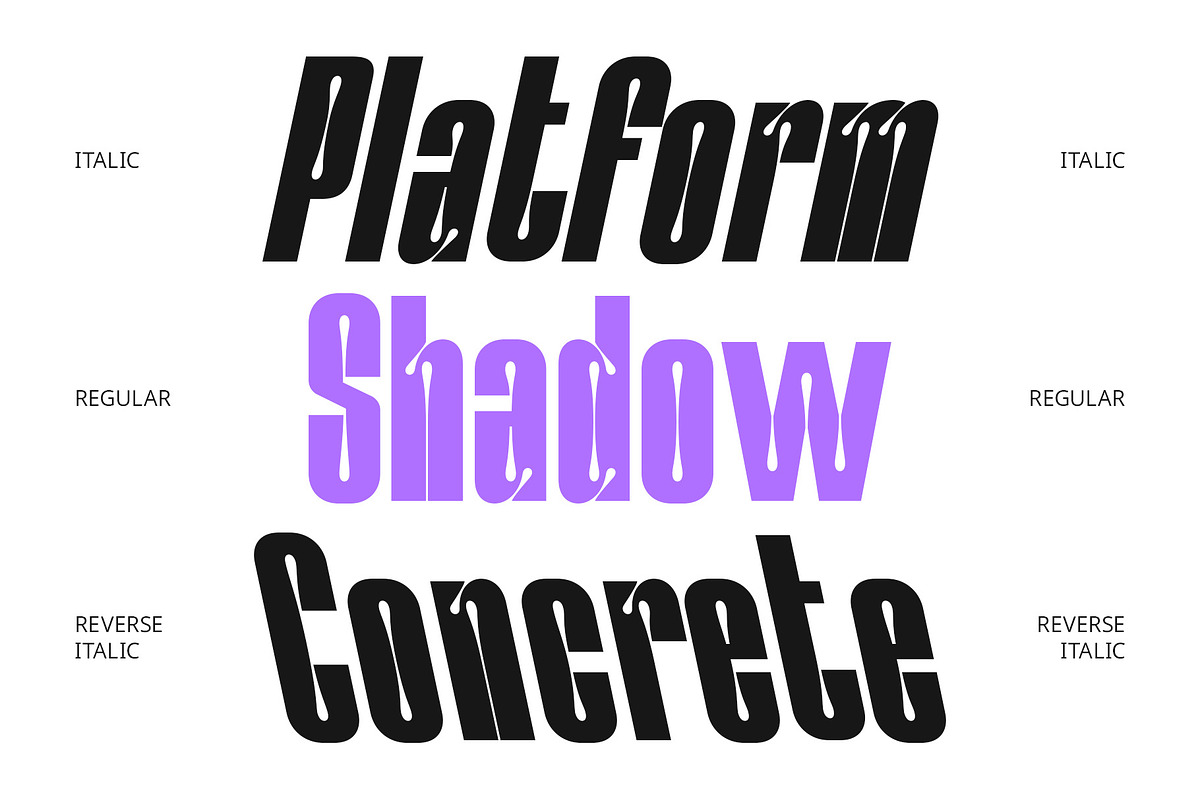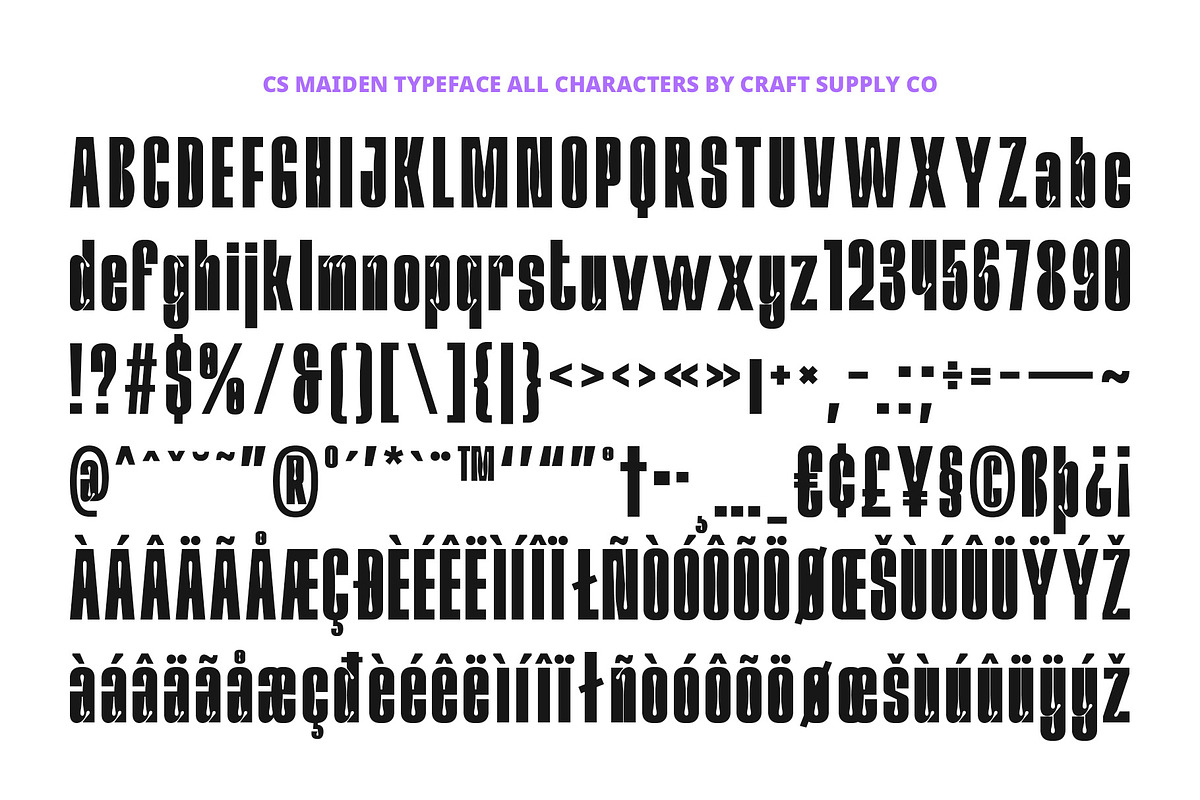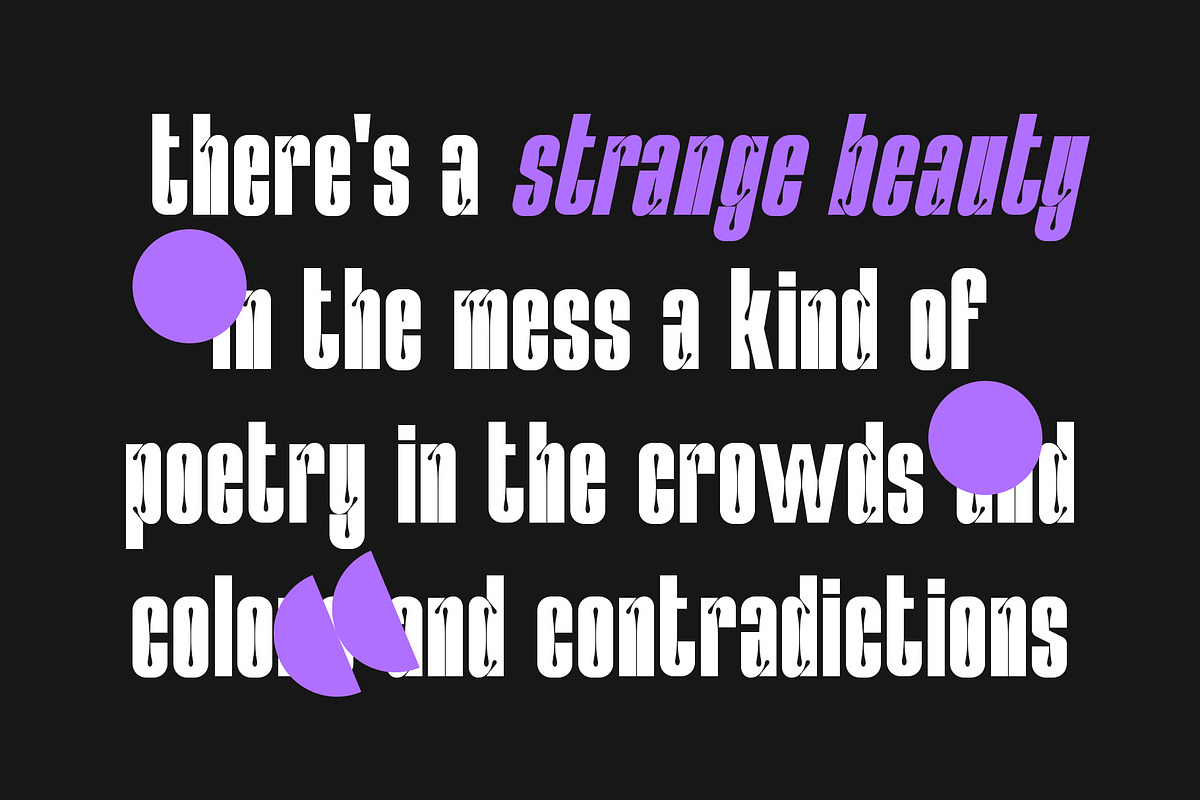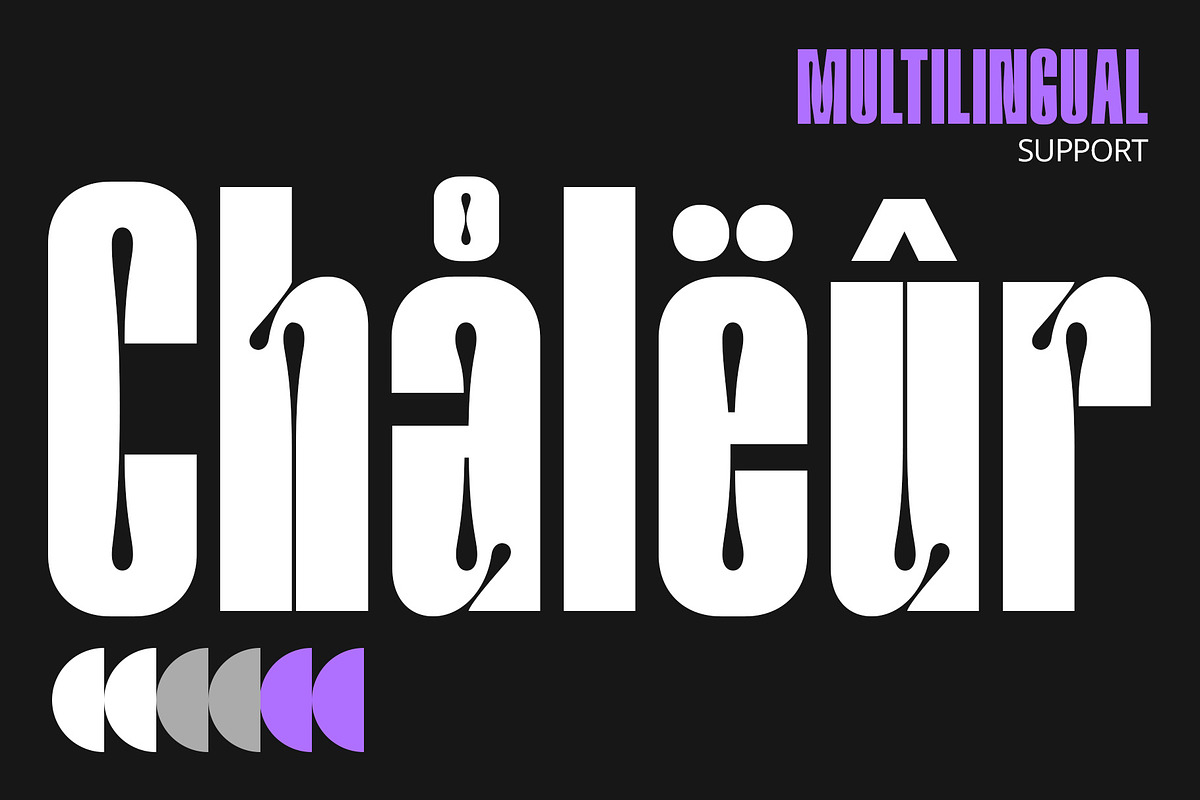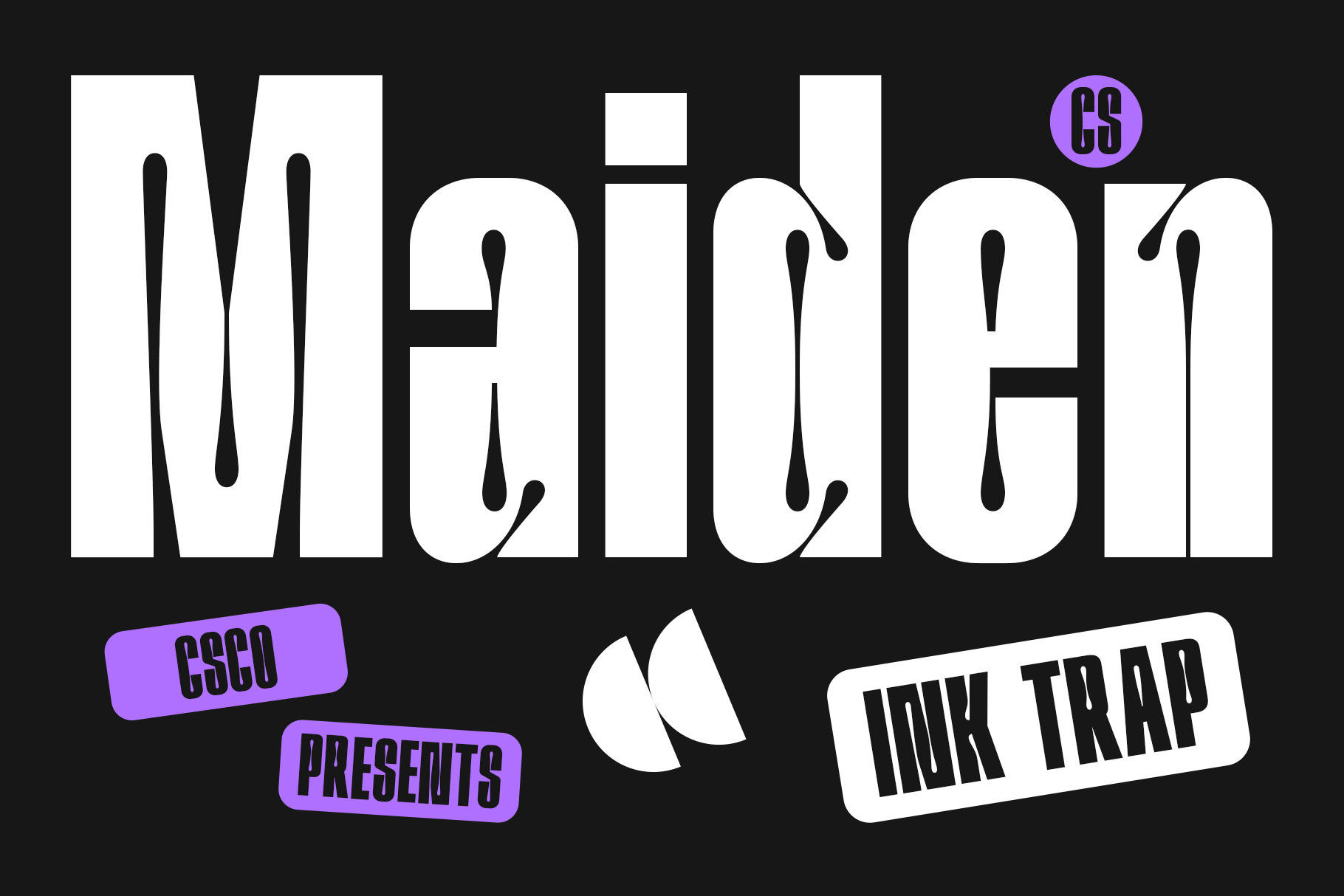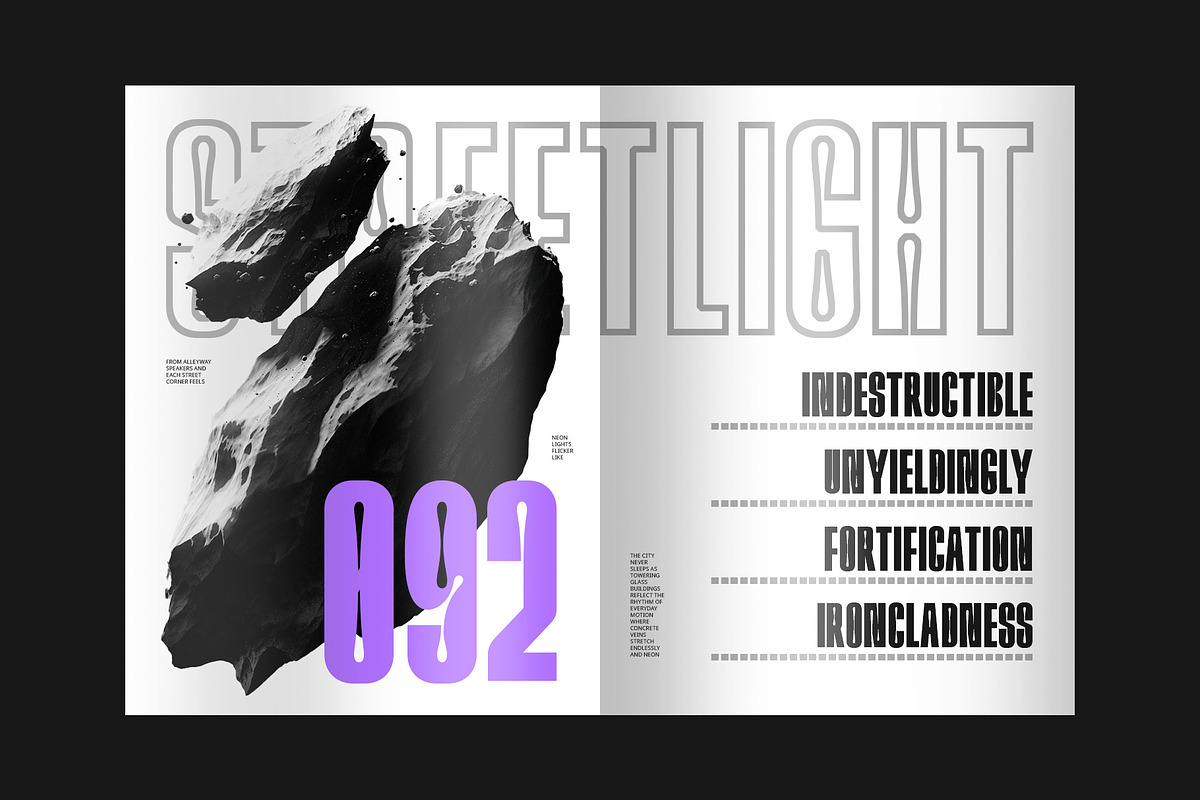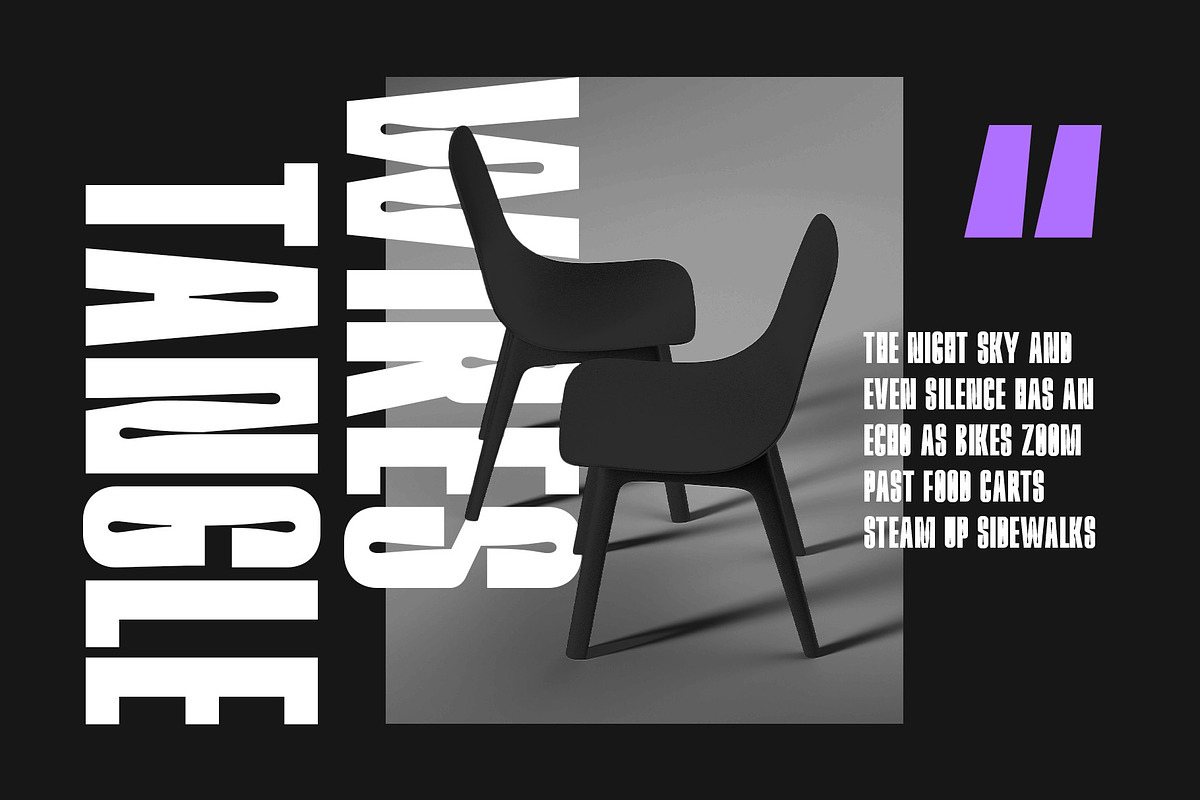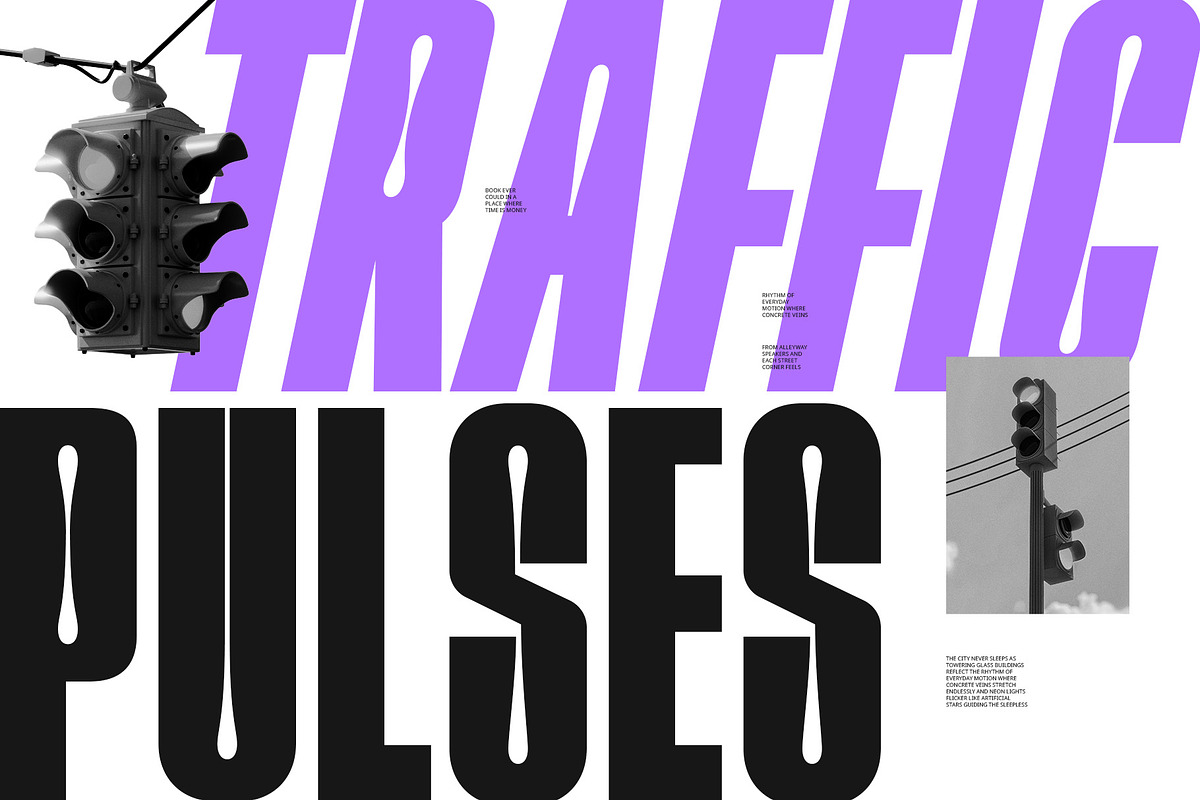
CS Maiden – Inktrap Font
CS Maiden Font – Sharp Modern Inktrap Sans Serif
Functional, Stylish, and Precision-Crafted CS Maiden is a modern sans serif font featuring condensed proportions and inktrap detailing, resulting in a typeface that is both visually distinctive and highly functional. Designed with a focus on clarity and contemporary aesthetics, its sharp edges and clean structure deliver a look that feels technically refined and forward-thinking.
Condensed Efficiency Meets Inktrap Utility With its condensed style, CS Maiden maximizes space without sacrificing visual impact, making it ideal for tight layouts such as editorial headlines, UI design, or posters. The inktrap elements are subtle yet essential—adding precision and clarity especially at small sizes or in high-density environments like screens or print materials.
Minimalist with a High-Tech Edge The clean, structured lines of CS Maiden give it a minimalist yet strong appearance, perfect for brands or designers looking to express efficiency, innovation, and professionalism. It’s a go-to choice for technology branding, corporate identity systems, and modern editorial design, where sharpness and space-saving form are essential.
Ideal for Tech, Editorial, and Modern Branding Whether applied to digital platforms, corporate branding, or clean editorial spreads, CS Maiden projects professionalism with a cutting-edge edge. It’s the perfect blend of utility, modern aesthetics, and typographic precision—tailored for designs that demand both form and function.